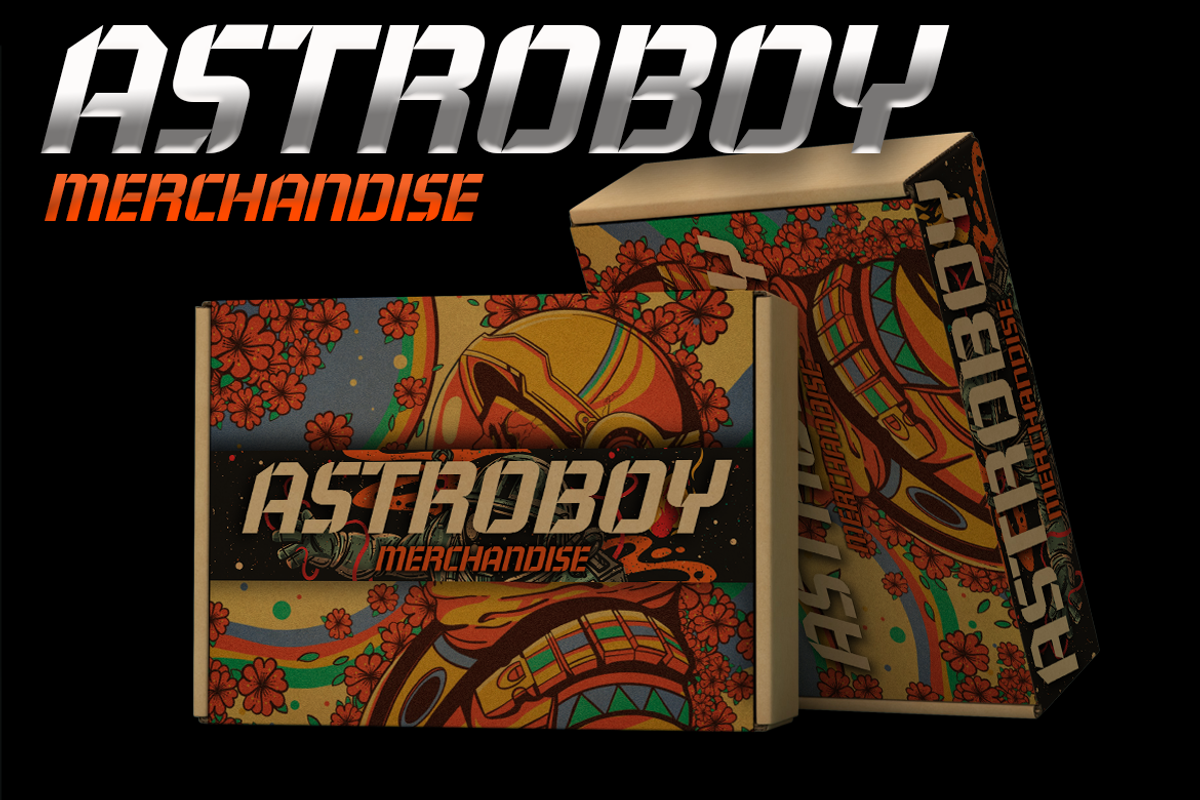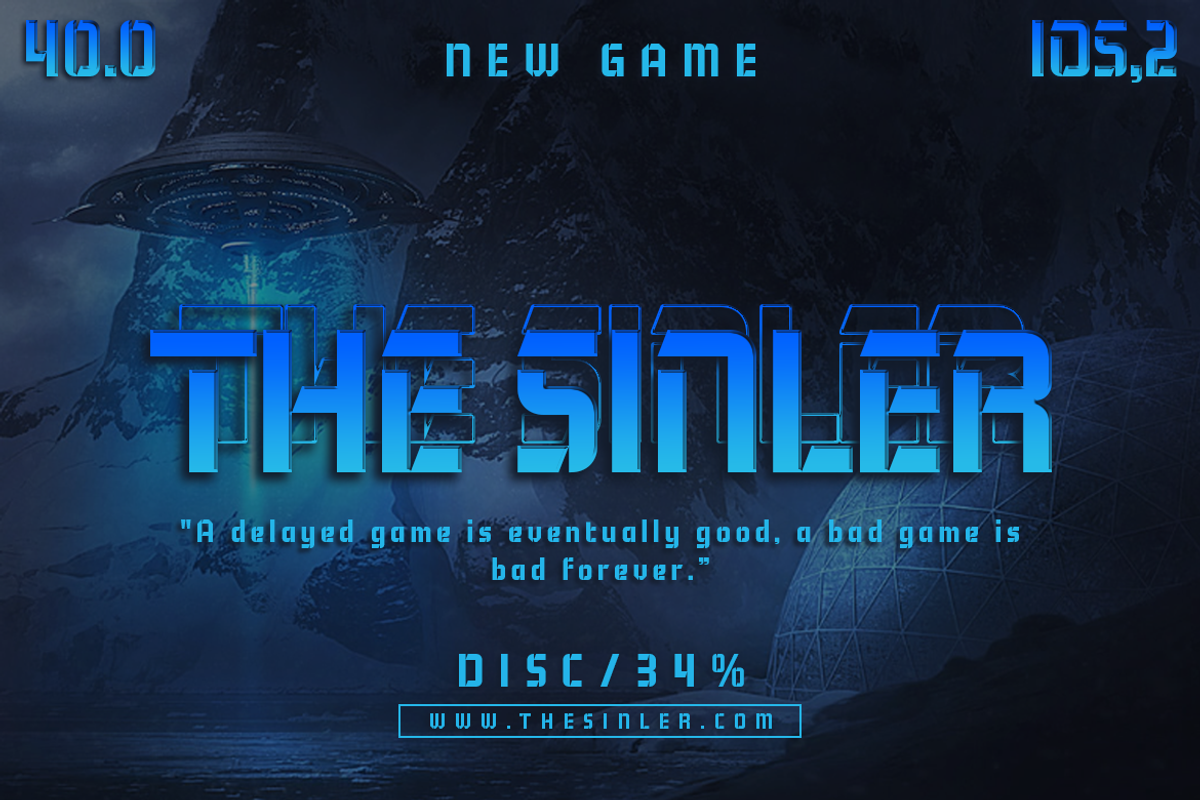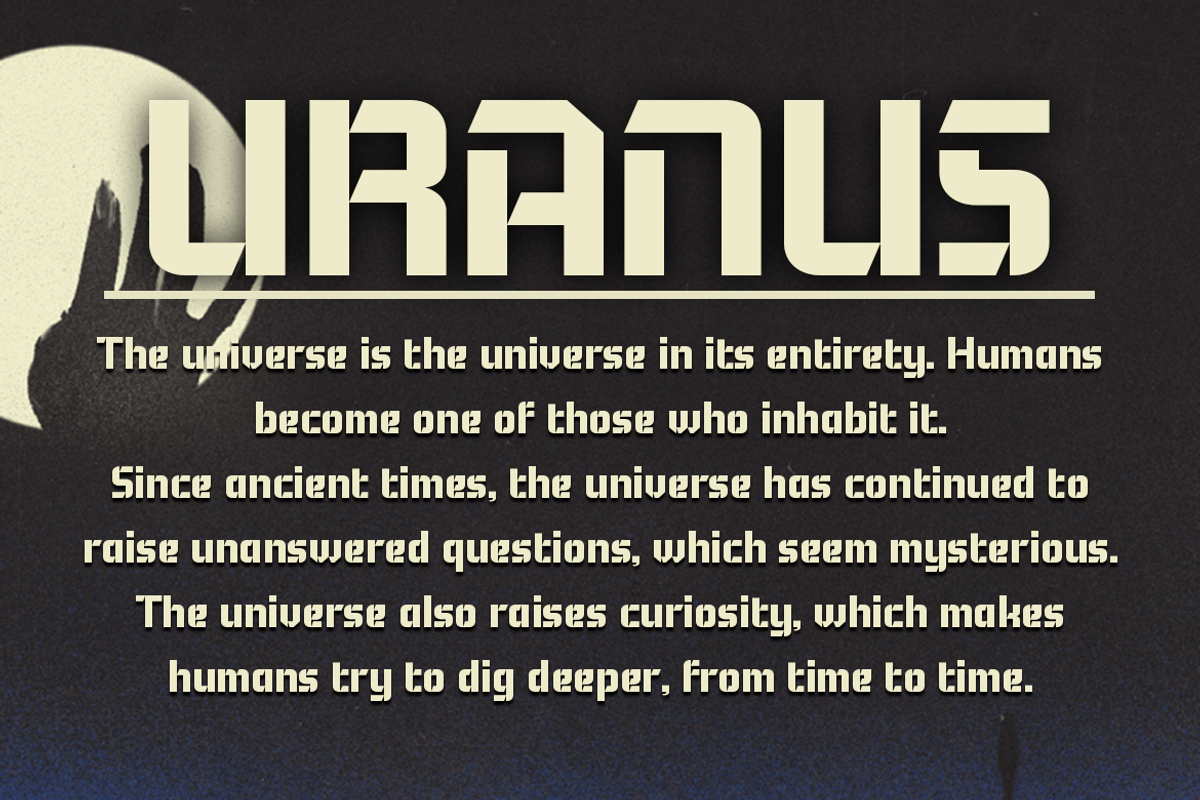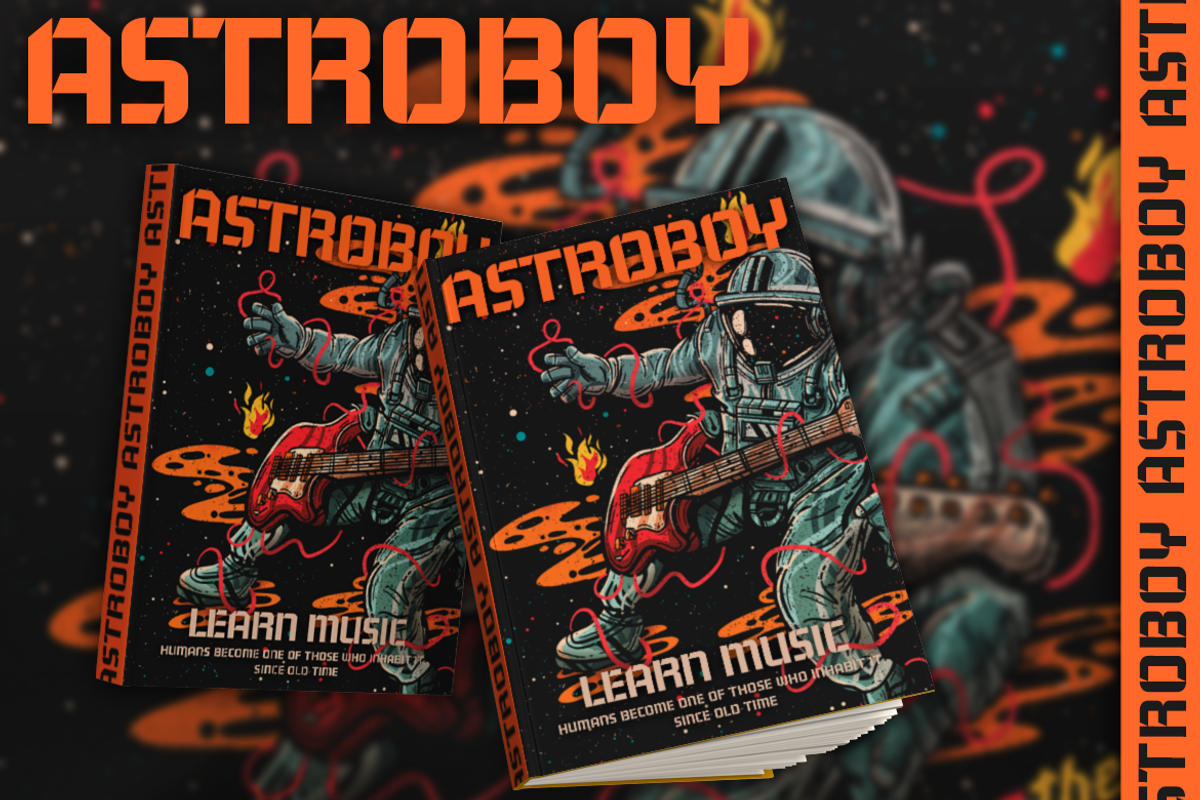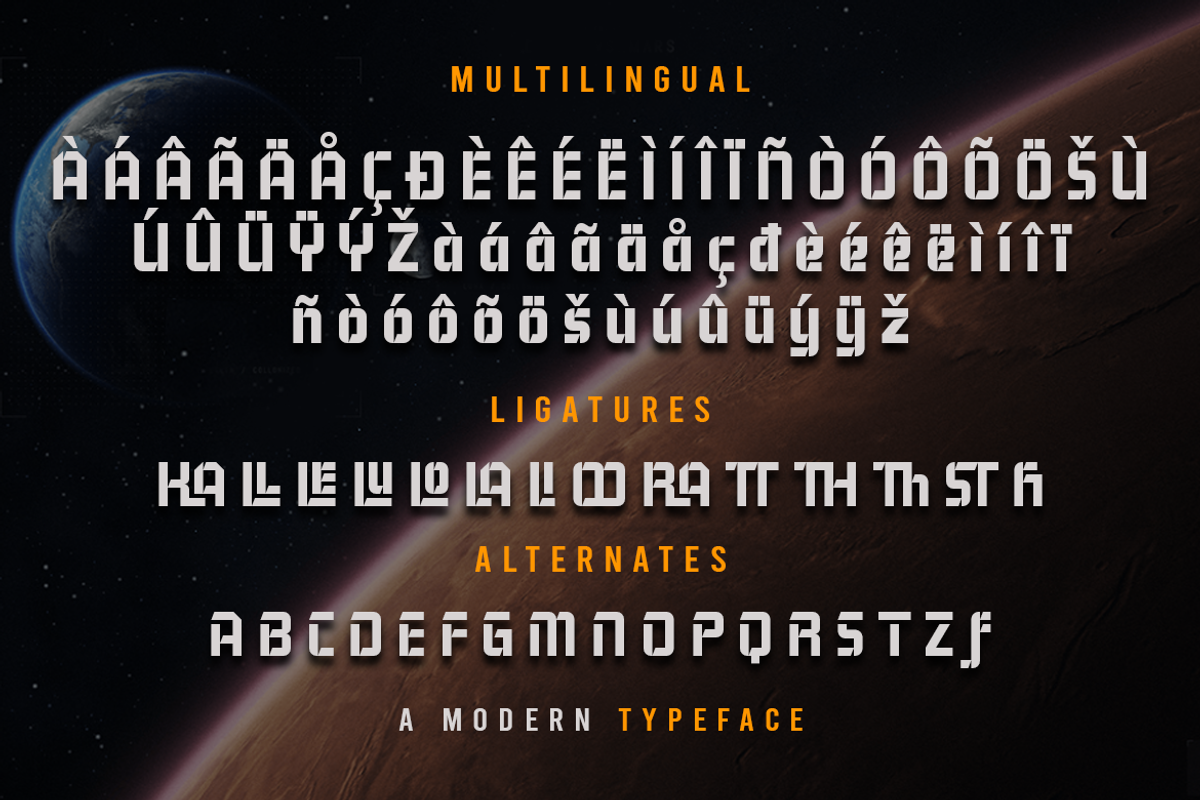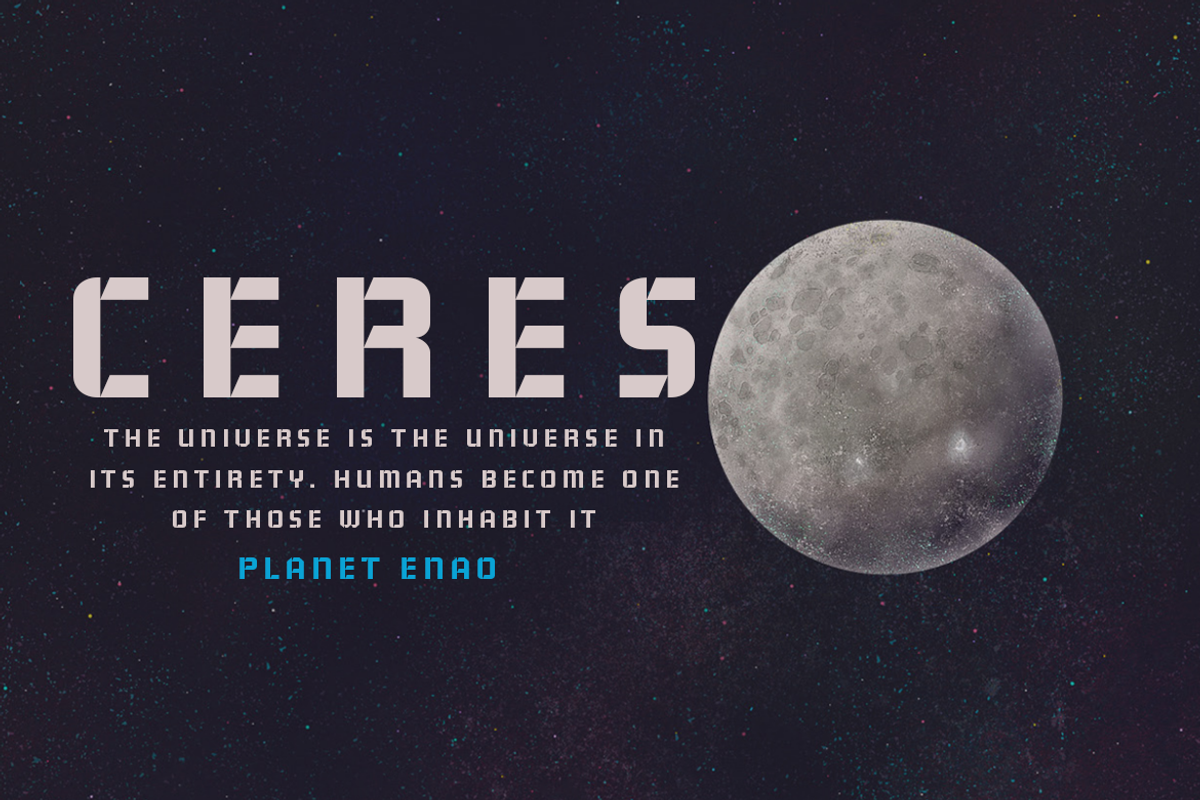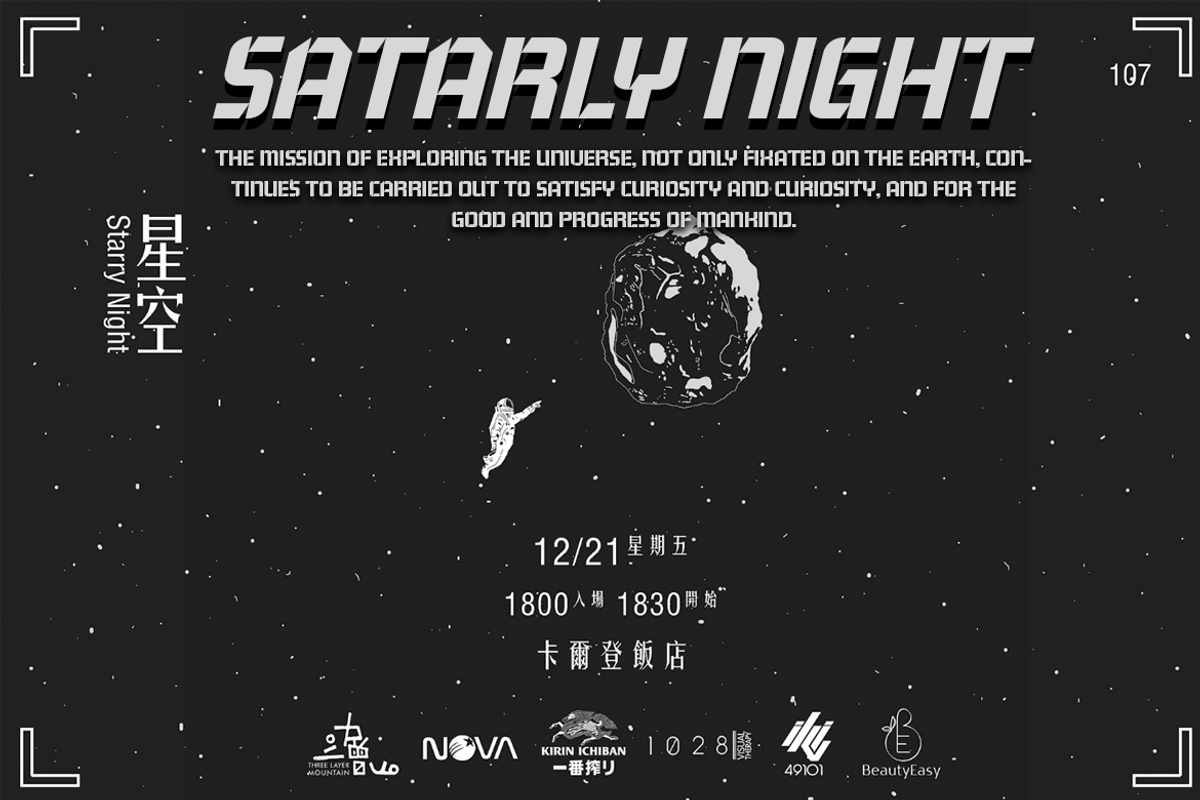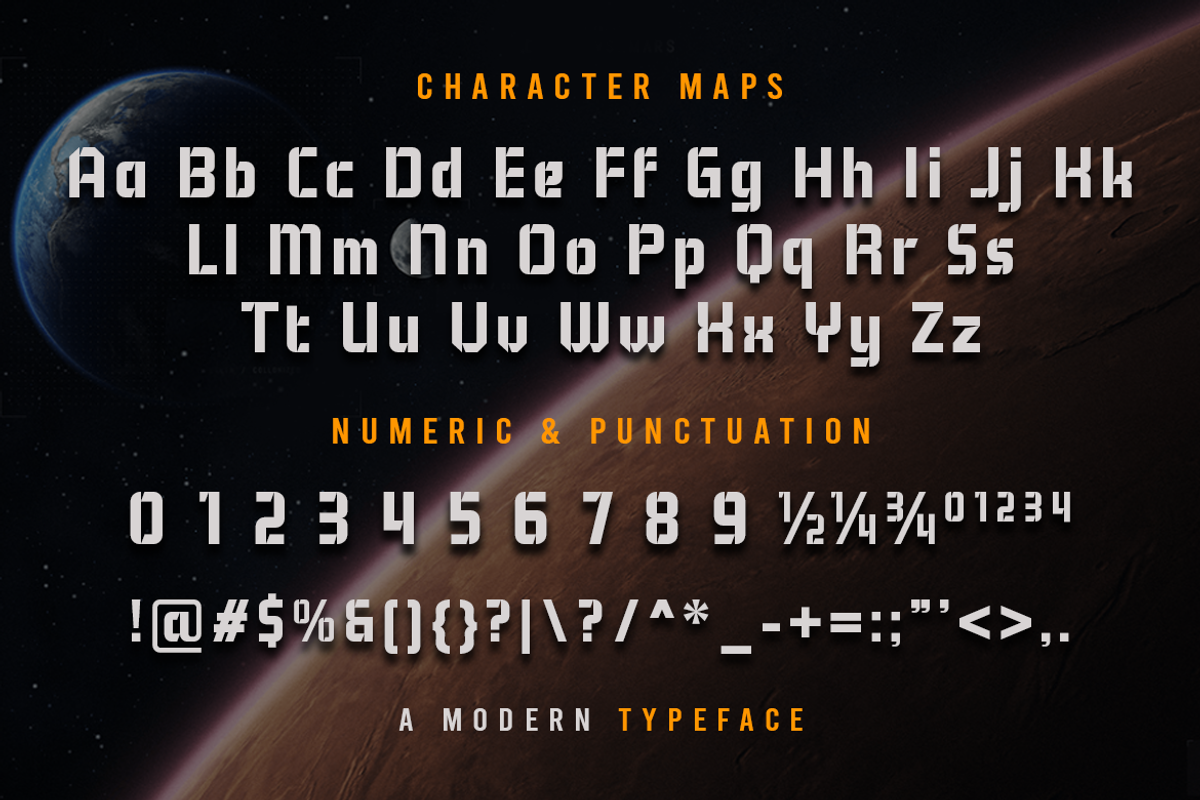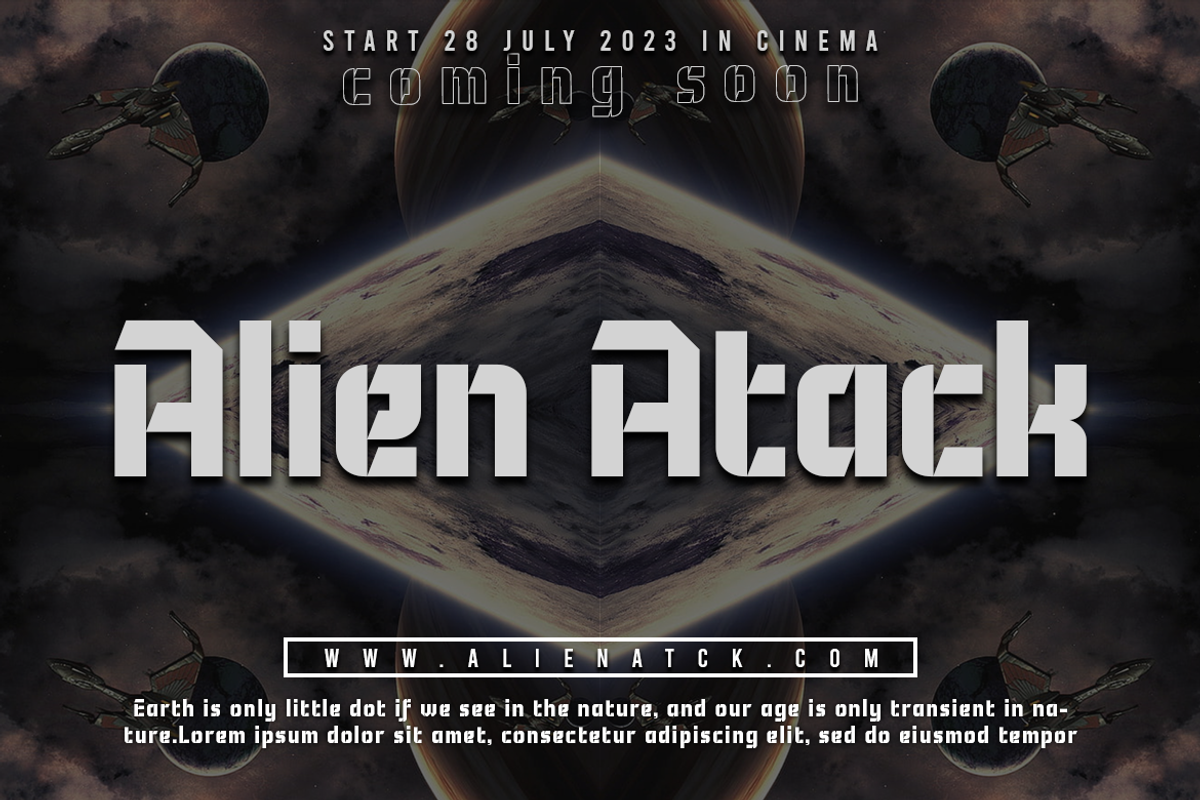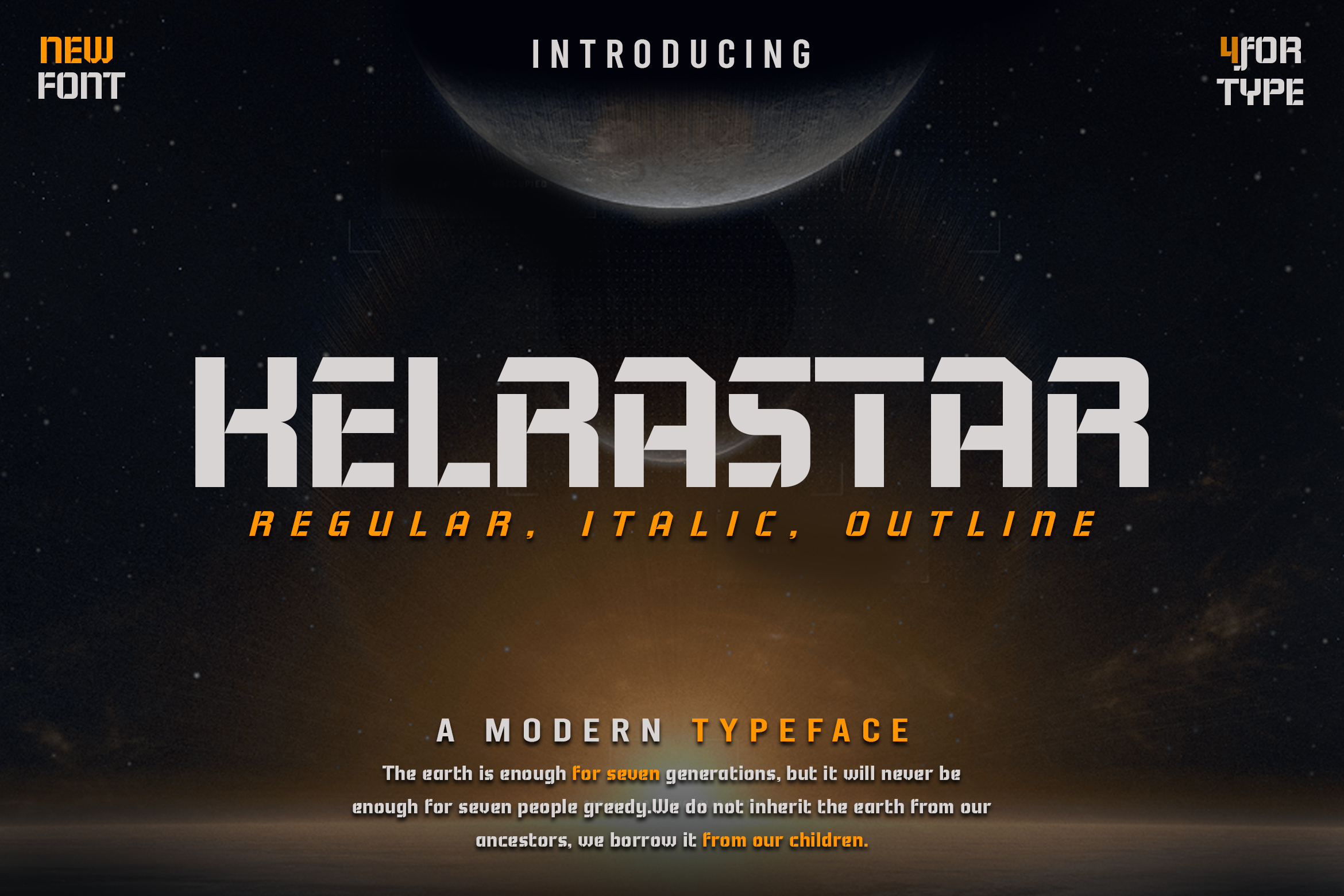
KelraStar - A Futuristic Typeface
KelraStar makes your typography design more futuristic. Emerge your design, whether you’re looking for a font to design a gaming project, music flyers, movie posters, or other graphics you’ll find plenty of choices on this list. This font is PUA encoded which means you can access all of the amazing glyphs and ligatures with ease!
Available :
- Italic
- Italic outline
- Outline